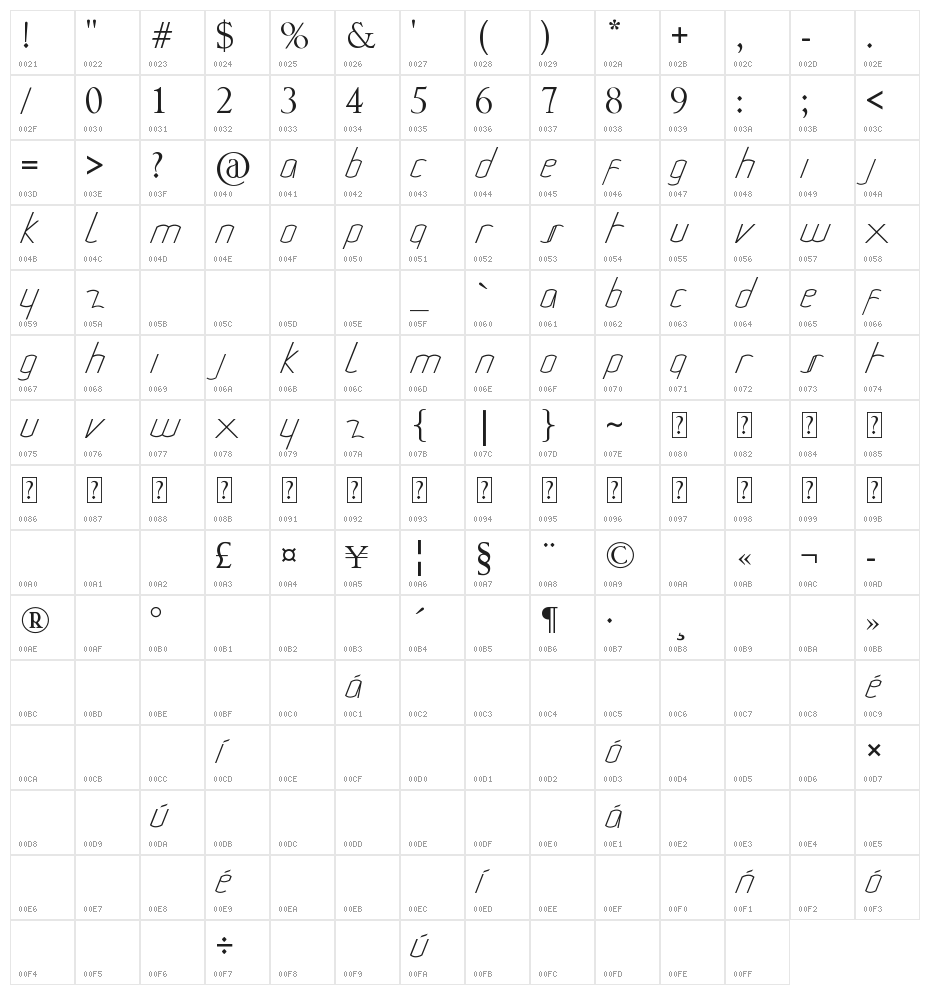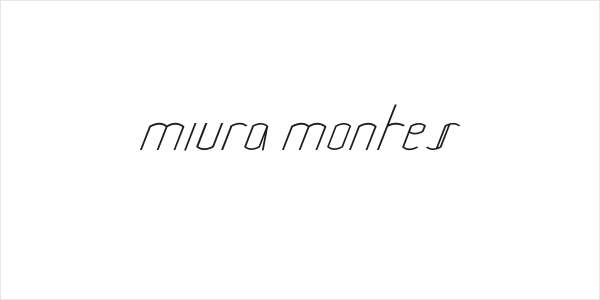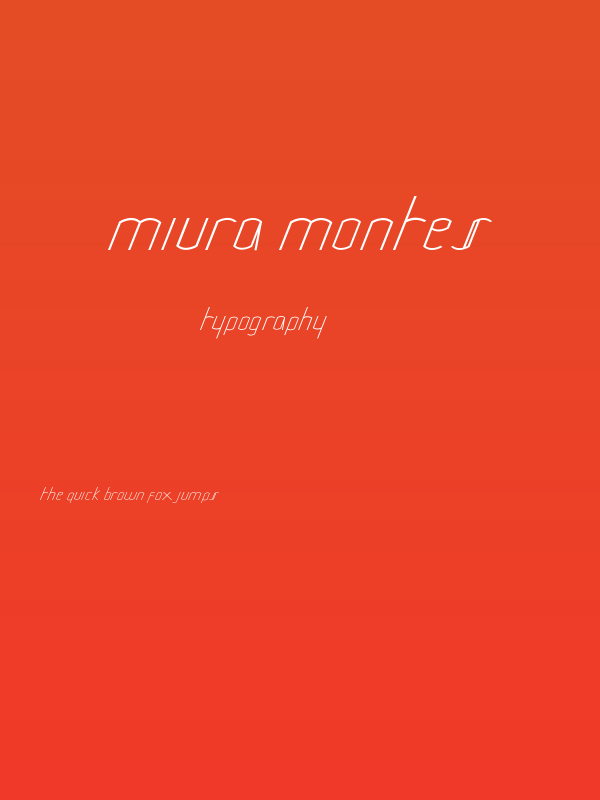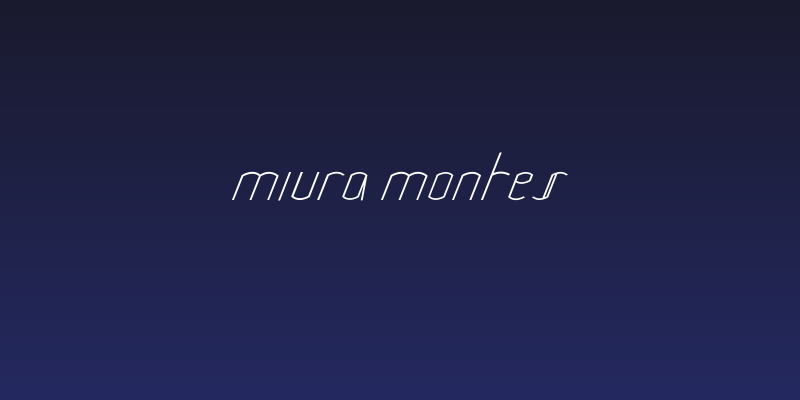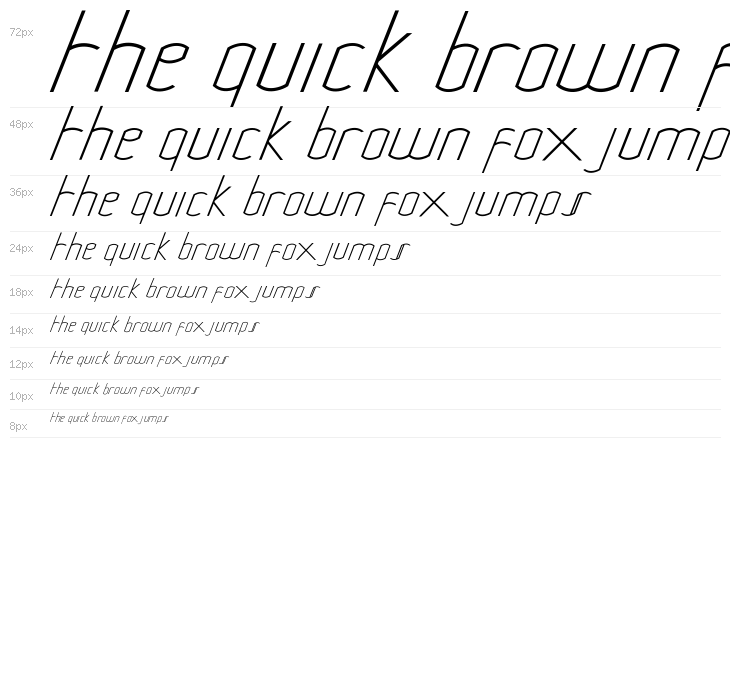
Miura Montes Font
Miura Montes Description
This font features a sleek, modern design with a distinct slant, giving it a dynamic and forward-moving appearance. The characters are elongated and slightly condensed, contributing to a sophisticated and elegant look. The strokes are consistent in thickness, providing a uniform and clean aesthetic. The uppercase and lowercase letters maintain a cohesive style, with subtle variations that add character without compromising readability. The numerals are well-proportioned, aligning seamlessly with the overall design. Special characters are included, maintaining the font's unique style. This font is ideal for projects that require a contemporary and stylish touch.
| Proposed Projects | Ideal for branding, fashion magazines, modern websites, and creative advertising. |